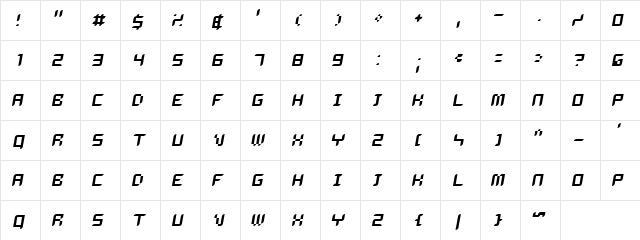
Dalila Oblique Regular
Design Context for Dalila Oblique Typeface
Dalila Oblique is a composed and adaptable typeface that performs quietly and consistently across a wide range of design contexts. The slanted form adds forward momentum and visual energy.
Pro Tip: Try Dalila Oblique for annotation and caption copy alongside an upright companion — the contrast in angle creates a dynamic but ordered typographic system.